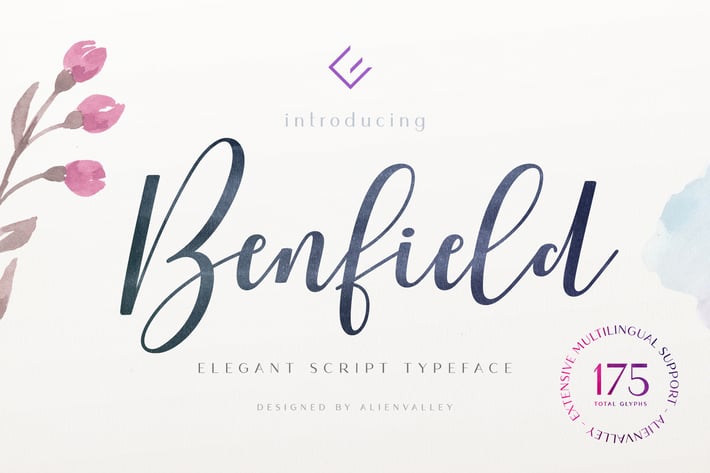
Benfield - Script Font
The font looks great on business cards, invitations, flyers and more! You can also pair it with serif or sans serif fonts as shown in the preview images.
+ Uppercase & Lowercase
+ Multilingual Support
+ Contextual alternates
+ Uppercase & Lowercase
+ Multilingual Support
+ Contextual alternates